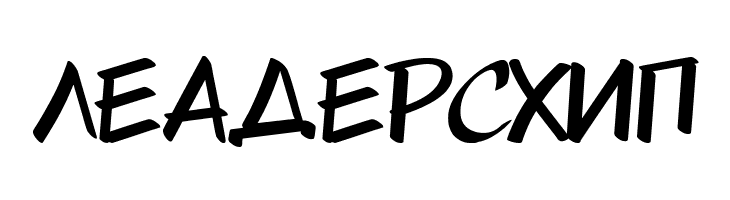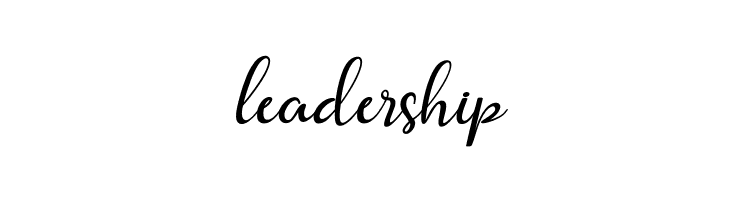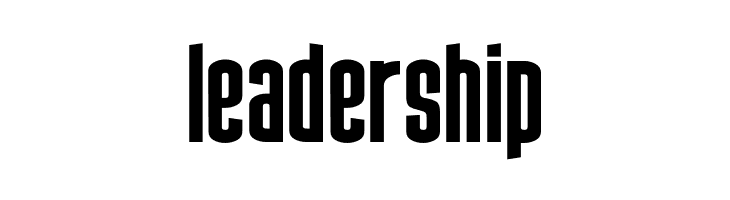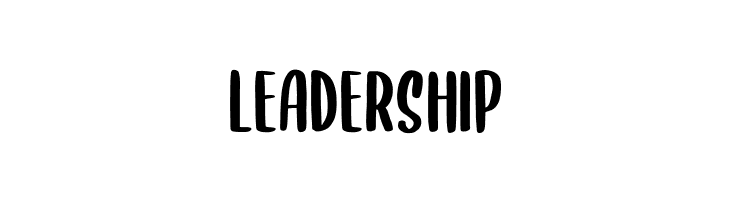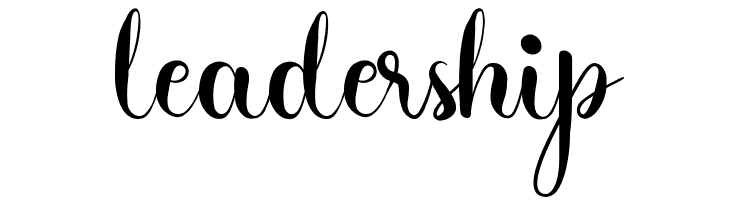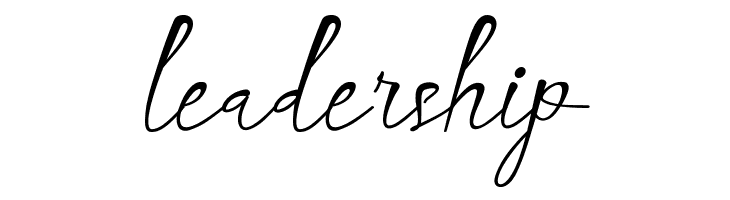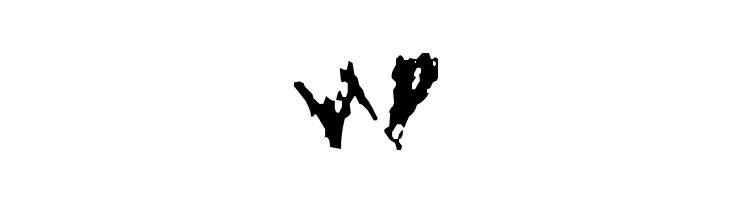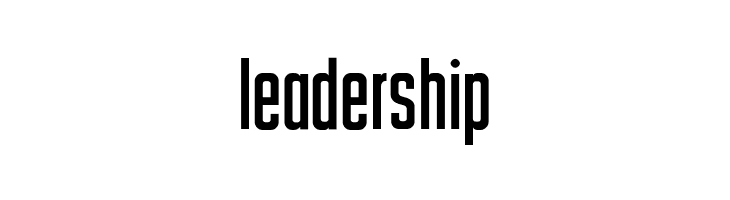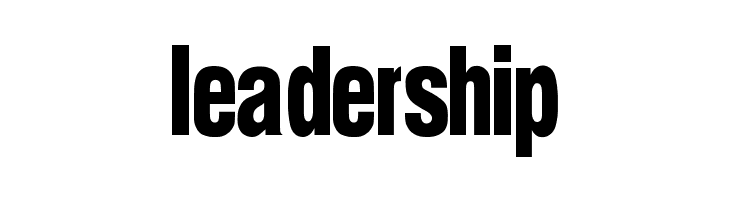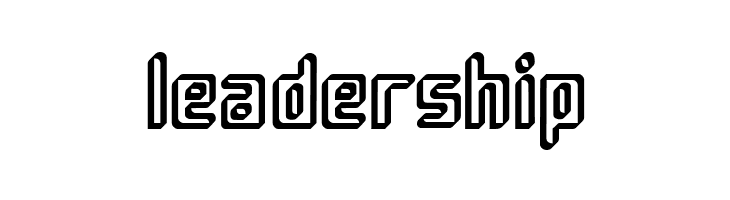
( Fonts by Apostrophic Lab ) A modern outline font with geometric and uniform letterforms. Download 279 Downloads@WebFont
( Fonts by Apostrophic Lab ) A modern, rounded sans-serif font with uniform strokes and balanced spacing. Download 179 Downloads@WebFont
( Fonts by Apostrophic Lab ) A modern sans-serif font with smooth curves and uniform stroke width, perfect for versatile applications. Download 147 Downloads@WebFont
( Fonts by Apostrophic Lab ) A modern, narrow sans-serif font with uniform stroke width and clear legibility. Download 233 Downloads@WebFont
( Fonts by Apostrophic Lab ) A modern, italic sans-serif font with a sleek and dynamic style. Download 254 Downloads@WebFont
( Fonts by Apostrophic Lab ) A playful, rounded font with smooth curves and a friendly appearance. Download 843 Downloads@WebFont
( Fonts by Apostrophic Lab ) A playful, rounded font with smooth curves and expanded letterforms. Download 397 Downloads@WebFont
( Fonts by Apostrophic Lab ) A playful, narrow font with a slightly warped and whimsical style. Download 498 Downloads@WebFont
( Fonts by Apostrophic Lab ) A playful, rounded font with a casual and approachable style. Download 143 Downloads@WebFont
( Fonts by Apostrophic Lab ) A modern, italicized font with smooth, rounded edges and a dynamic appearance. Download 240 Downloads@WebFont
( Mr Letters - fontbundles.net/mrletters/rel=mur3FT ) A playful and elegant script font with a handwritten style. Download 272 Downloads@WebFont
( MrLetters - fontbundles.net/mrletters/rel=mur3ft ) An elegant, italicized script font with flowing, cursive letterforms. Download 372 Downloads@WebFont
( Fonts by Artimasa - www.behance.net/artimasa - Personal-use only. For commercial use please contact owner. ) A bold, cursive font with interconnected letters and a modern flair. Download 4772 Downloads@WebFont
( Miljkovic - akomenepitas.netii.net/ ) A bold, handwritten-style font with a dynamic and informal appearance. Download 170 Downloads@WebFont
( Fonts by CalligraphyFonts - Personal-use only. For commercial use please contact owner. ) A modern, elegant cursive font with dynamic stroke variations. Download 42 Downloads@WebFont
( Fonts by Laura Chen ) A playful, hand-drawn serif font with quirky, irregular strokes. Download 287 Downloads@WebFont
( Sharkshock - Dennis Ludlow - www.sharkshock.net ) A bold, condensed font with strong, impactful uppercase letters. Download 711 Downloads@WebFont
( Fonts by Uwe Borchert - Personal-use only. For commercial use please contact owner. ) A bold, modern sans-serif font with a geometric and condensed style. Download 47 Downloads@WebFont
( Fonts by Alit Suarnegara - Alit Design - www.alitdesign.net - Personal-use only. For commercial use please contact owner. ) A bold, playful handwritten font with a friendly and approachable style. Download 601 Downloads@WebFont
( Fonts by or from www.graffitifonts.net ) A bold, graffiti-inspired font with dynamic strokes and urban flair. Download 379 Downloads@WebFont
Font by JuanCasco. For commercial use please contact the owner. ( Fonts by Juan Casco - www.juancasco.net ) An ornate and decorative font with gothic influences and intricate details. Download 1502 Downloads@WebFont
( Fonts by Abraham Plaza - behance.net/abrahamplazadelpino - For fully operational commercial use of any of my fonts please donate 12€ (10£/14$) via PayPal abrahamplapi(at)gmail.com - Personal-use only. ) A bold, geometric font with tall, narrow characters and a modern aesthetic. Download 277 Downloads@WebFont
( Fonts by CalligraphyFonts - Personal-use only. For commercial use please contact owner. ) A flowing script font with elegant curves and a handwritten feel. Download 64 Downloads@WebFont
( Fonts by Darcy Baldwin - darcybaldwin.com. Free for personal use only ) A playful, hand-drawn font with tall, narrow letters and a whimsical style. Download 131 Downloads@WebFont
( Fonts by Darcy Baldwin - darcybaldwin.com. Free for personal use only ) A playful, bold handwritten font with tall, narrow letters and rounded edges. Download 137 Downloads@WebFont
( Fonts by Mr Fisk - Mike Larsson - fontorama.net ) A distressed, grungy font with irregular, jagged edges and a chaotic aesthetic. Download 729 Downloads@WebFont
( Sharkshock - Dennis Ludlow - www.sharkshock.net ) A sleek, modern font with geometric and futuristic design elements. Download 307 Downloads@WebFont
( Fonts by www.tepidmonkey.net ) A bold, modern font with rounded edges and geometric structure. Download 431 Downloads@WebFont
( Fonts by www.tepidmonkey.net ) A bold, geometric 3D font with a modern, futuristic style. Download 145 Downloads@WebFont